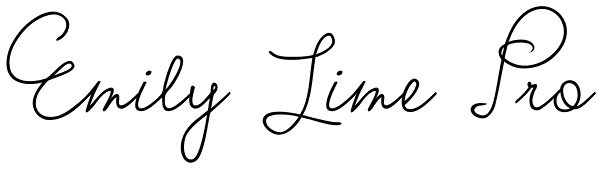
Emily Lime
Emily Lime is the namesake font - and the first of many to come from this up and coming foundry. It’s a fun, fully connected script with open type features to help with flow and readability. This great handwriting font includes other features to...